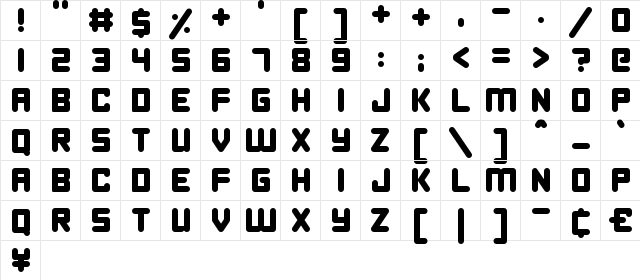
Happy Bomb Regular
| Designer | Darrell Flood |
Design Context for Happy Bomb Typeface
Happy Bomb takes a measured approach to typography — its balanced proportions and neutral character make it a reliable workhorse for both digital and print work.